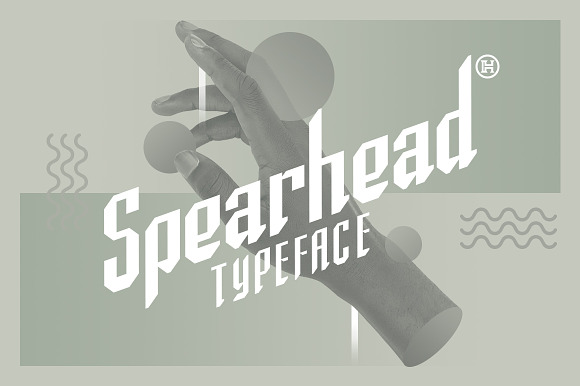
Spearhead Typeface | Font
Spearhead Typeface | Font Free Download
This sharp typeface is perfect for military brands, tactical gear companies, security services, weapon manufacturers, defense contractors, combat training, hunting equipment, survival gear, and aggressive design applications.
What makes this font exciting is its tactical precision combined with military authority, offering designers a penetrating typeface that captures the essence of strategic warfare while delivering combat-ready sharpness and spearpoint visual dominance.
The Spearhead font family includes light, regular, medium, bold, tactical, and combat variations, providing complete military design solutions for creating sharp strategic visual identities.
Whether you're developing tactical equipment brands or crafting military design experiences, Spearhead Typeface | Font Free Download brings exceptional military atmosphere and tactical authenticity to every application. This sharp typeface combines traditional military typography with contemporary combat design, creating letterforms that inspire precision and celebrate strategic excellence. The font's tactical construction and combat-ready details make it perfect for brands seeking immediate military recognition.
Spearhead Typeface | Font features carefully engineered tactical styling with authentic military character that conveys genuine combat expertise. Each character has been designed with sharp proportions and strategic elements that enhance the aggressive aesthetic. The font's military qualities make it particularly effective for defense companies and tactical applications.
Professional designers choose Spearhead Typeface | Font for projects requiring authentic military credibility and tactical atmosphere. Its combat heritage makes it exceptionally well-suited for defense contractors, security firms, and tactical lifestyle brands. The font's versatile military variations allow designers to control the tactical intensity, from subtle strategic elegance to full combat celebration.
The complete Spearhead Typeface | Font package offers extensive military ornaments and tactical decorative elements that enhance the strategic aesthetic. Advanced combat features allow designers to create complex military effects with multiple warfare-inspired options. This comprehensive tactical toolkit ensures designers have everything needed to create authentic military communications that celebrate the relentless precision of strategic warfare and spearhead tactical excellence.